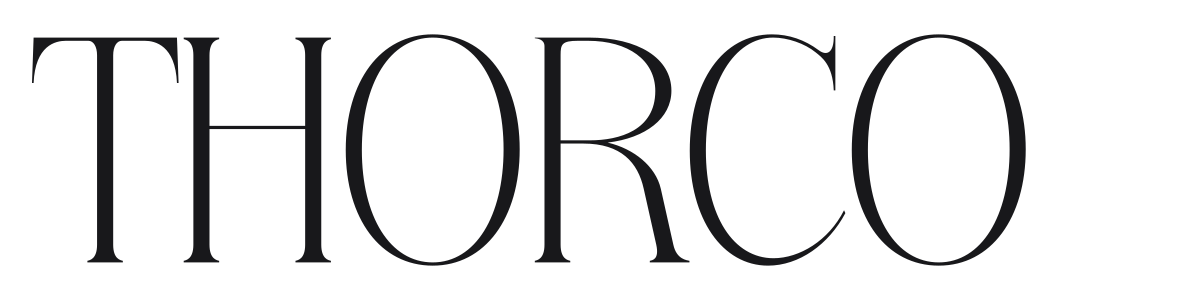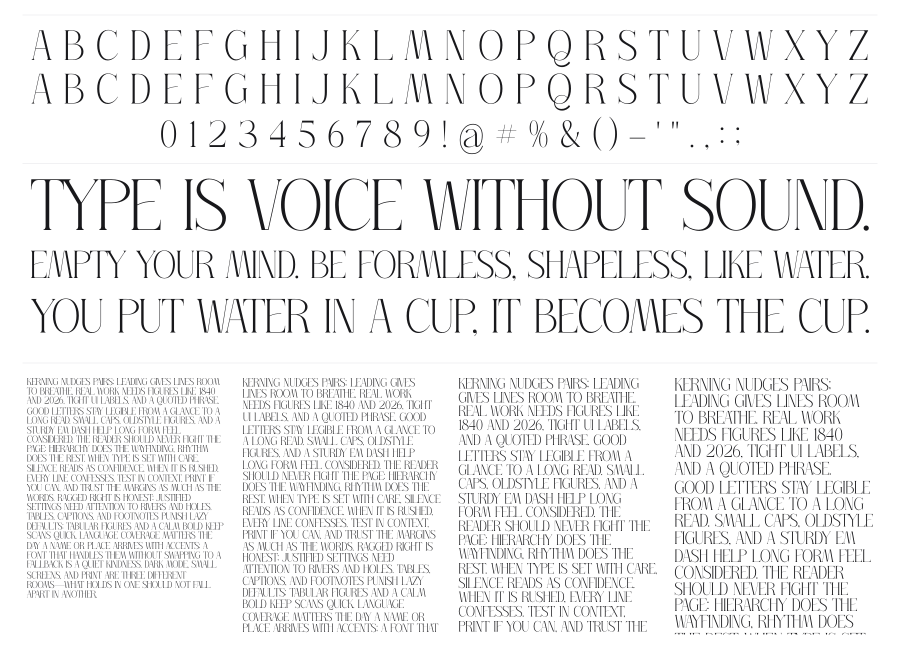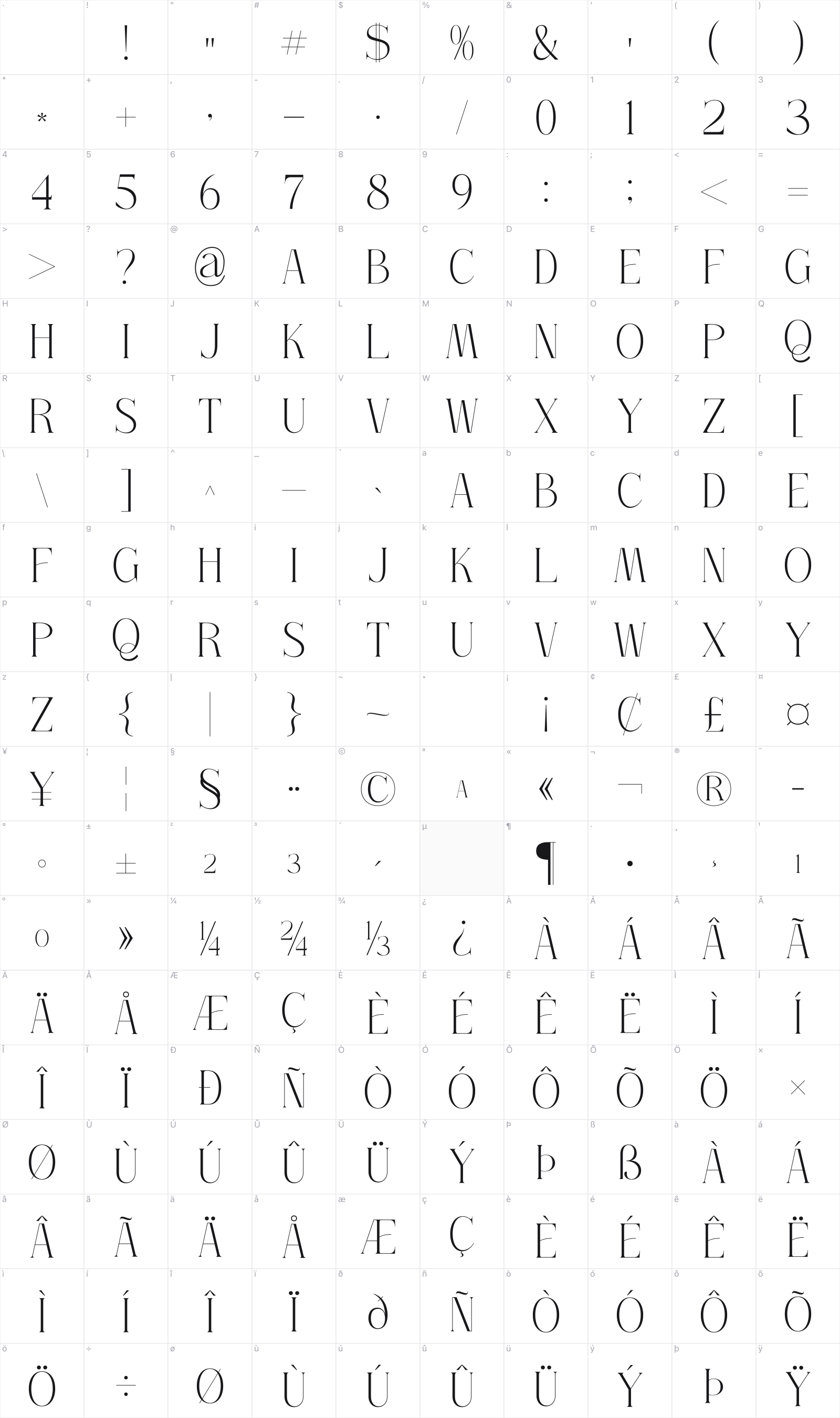
Thorco
Thorco is a condensed high-contrast serif with dramatic thick-to-hairline stroke transitions and tall, elegant proportions. The razor-thin serifs and stately upright posture place it firmly in the Didone tradition, updated for contemporary luxury branding and editorial use. It carries real presence at large sizes without resorting to decoration.